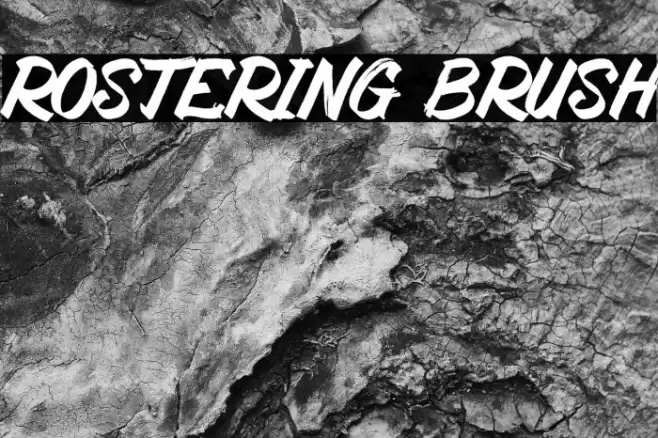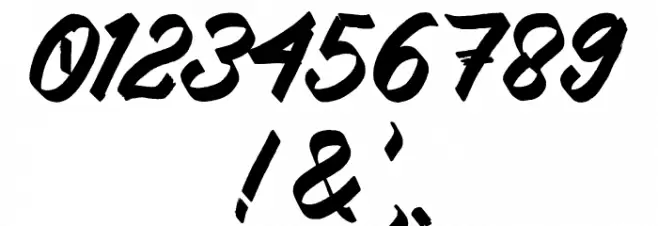
Rostering Brush Font
Rostering Brush Description
This dynamic and expressive font features bold, brush-like strokes that convey a sense of energy and movement. The characters are crafted with a hand-painted appearance, giving them an artistic and informal feel. The uppercase and lowercase letters maintain a consistent style, with sharp angles and fluid curves that enhance the overall aesthetic. The numbers and special characters are equally bold and maintain the same brushstroke quality, ensuring a cohesive look across all text elements. This font is ideal for projects that require a personal touch or a creative flair, making it suitable for artistic endeavors, branding, and more.
A bold, brush-style font with dynamic, hand-painted strokes from Uncategorized fonts.